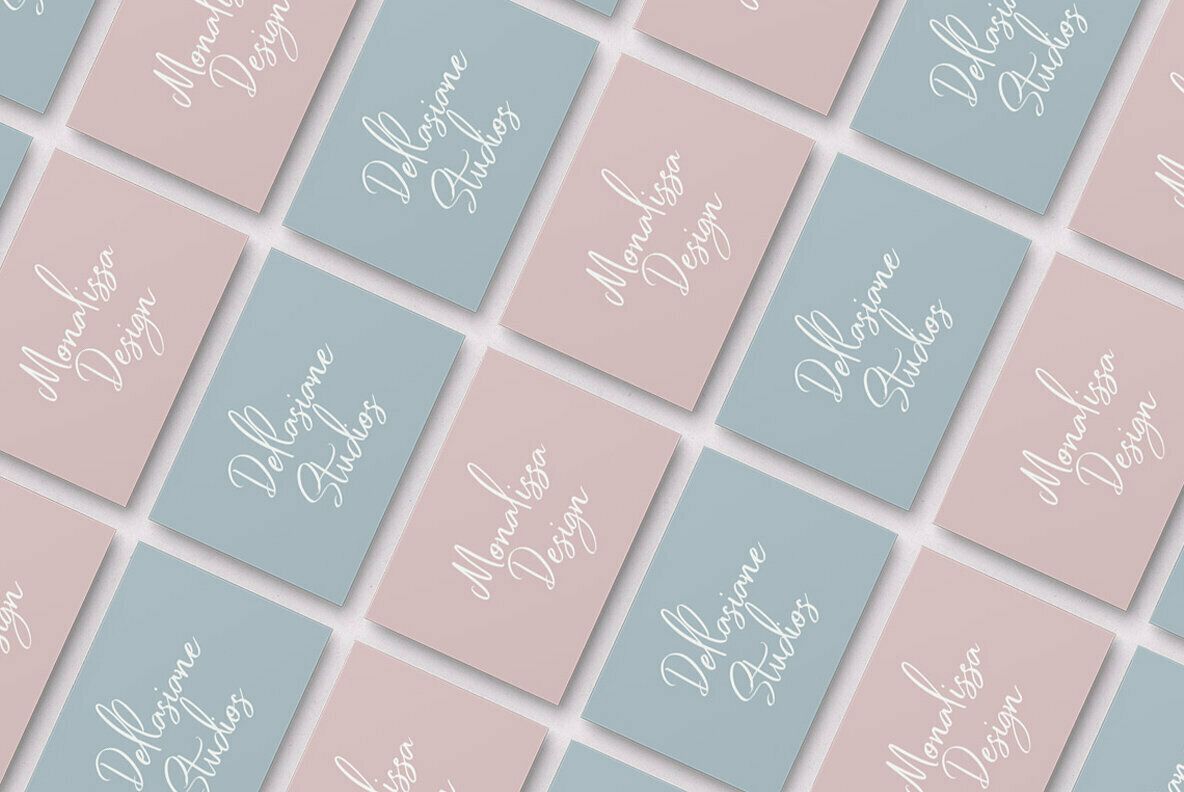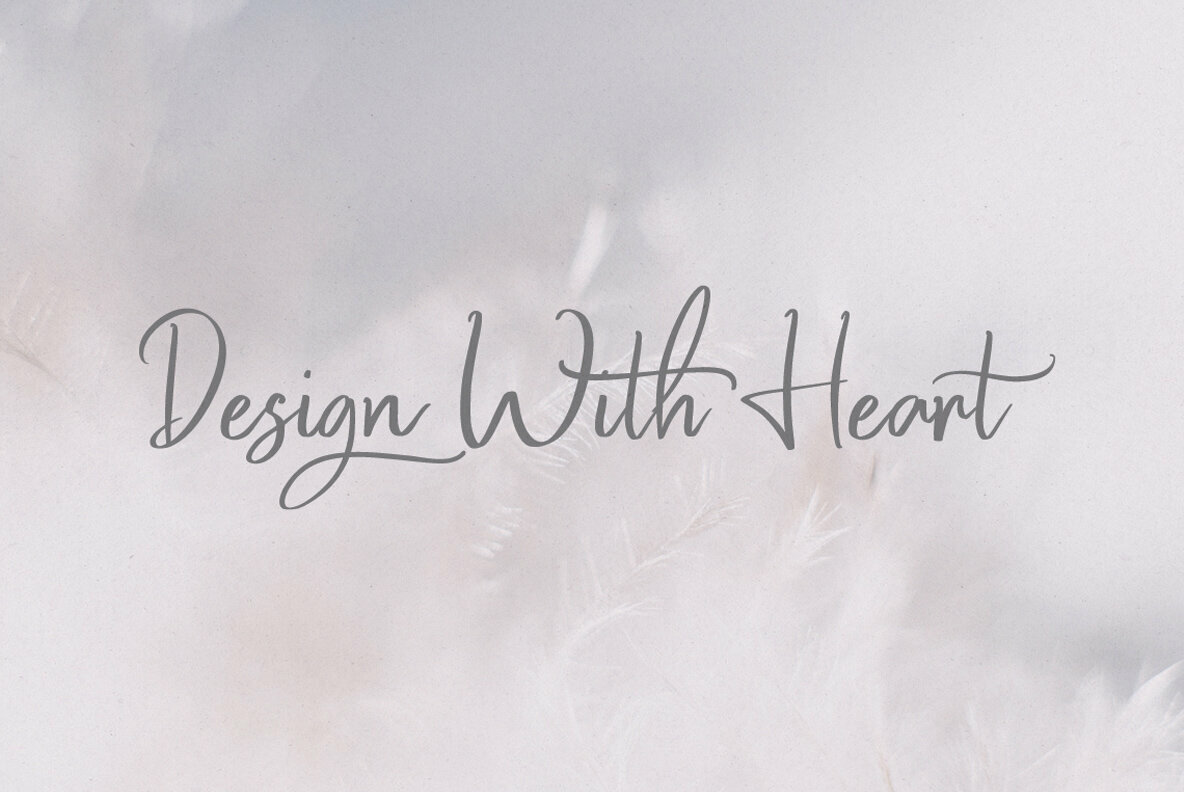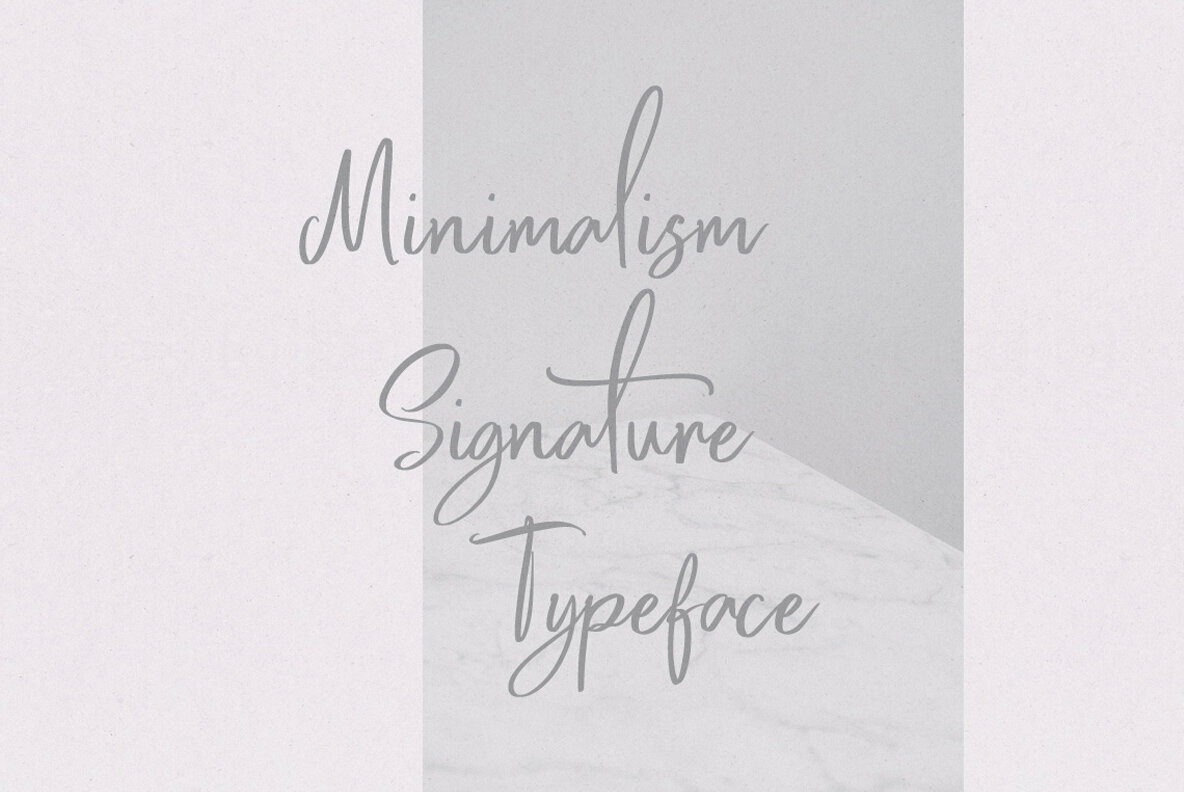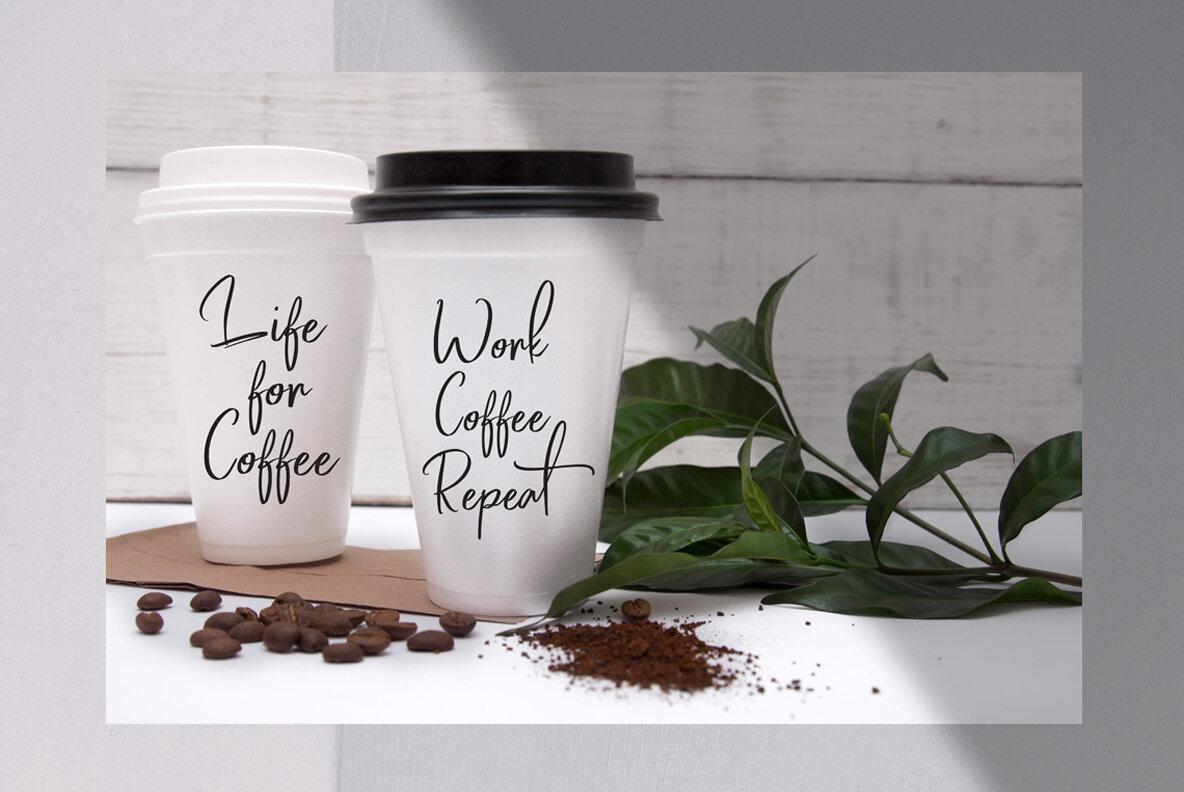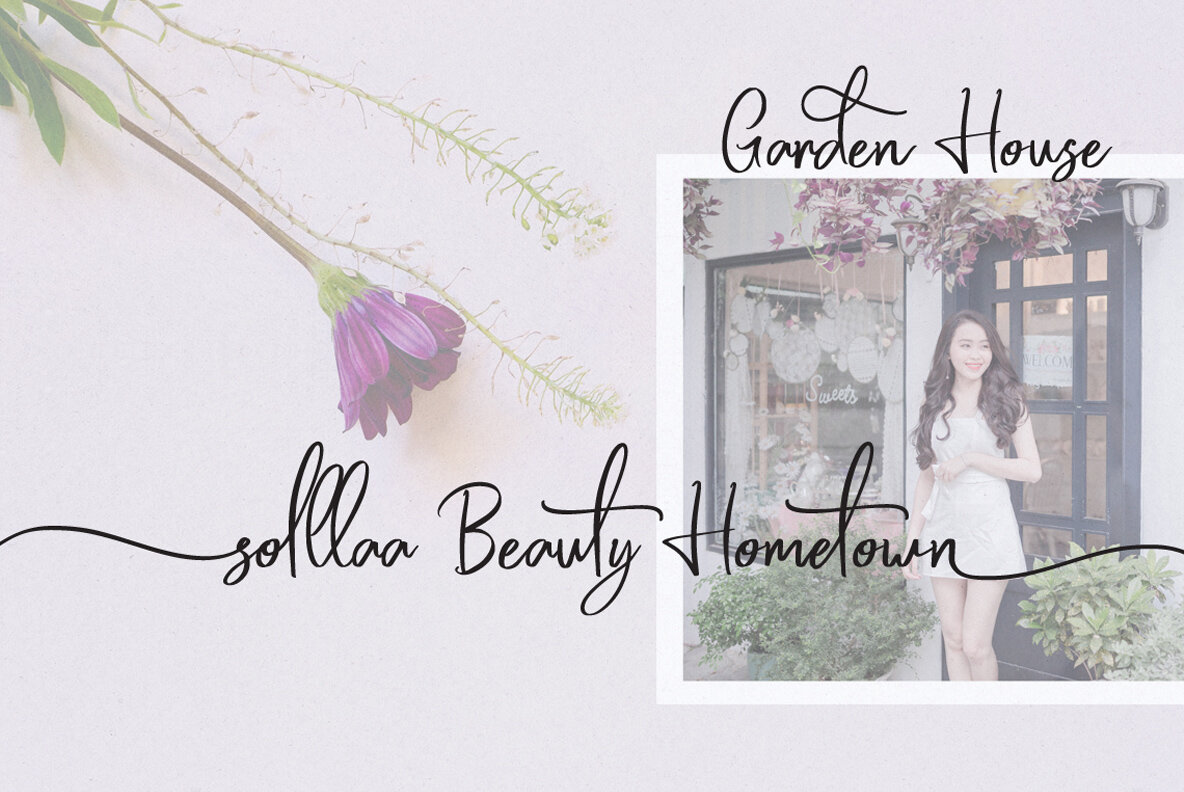
Hello Beauty Font
Hello Beauty
Hello Beauty is an exquisite script font showcasing a handlettered modern calligraphy style. This font is designed with opentype features, making it a versatile choice for any creative project. Features:Hello Beauty: Script Font with Modern Calligraphy